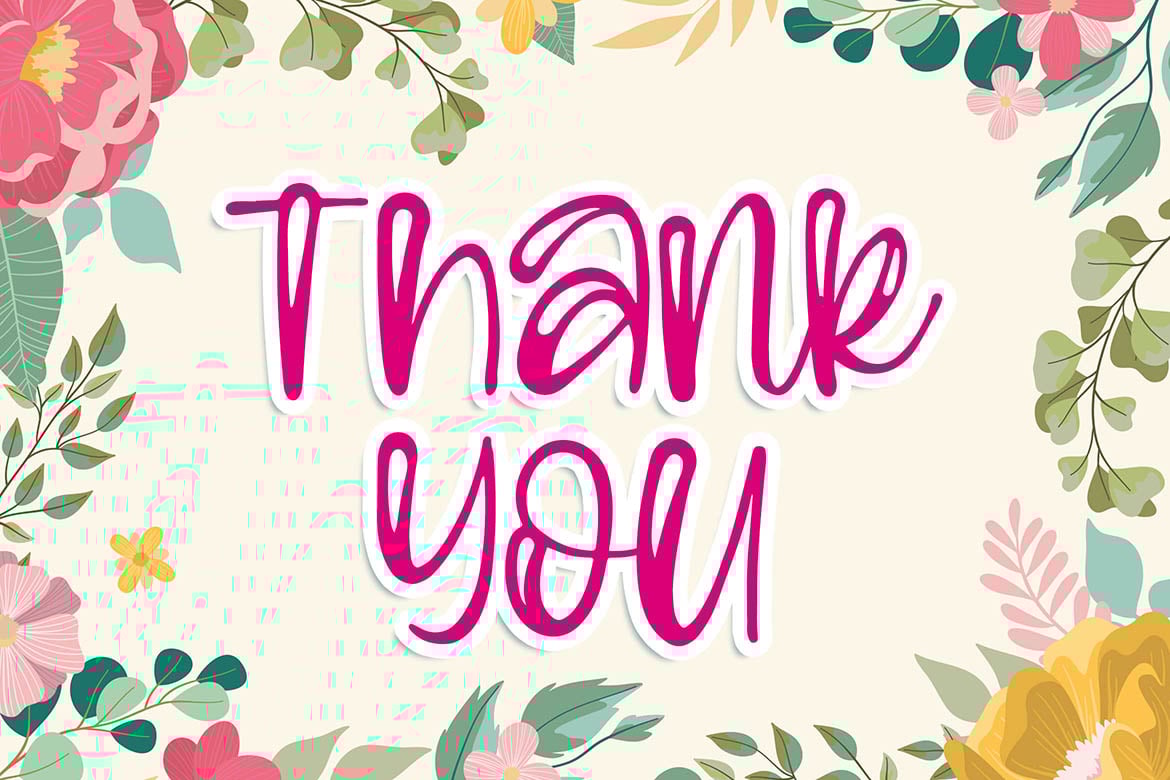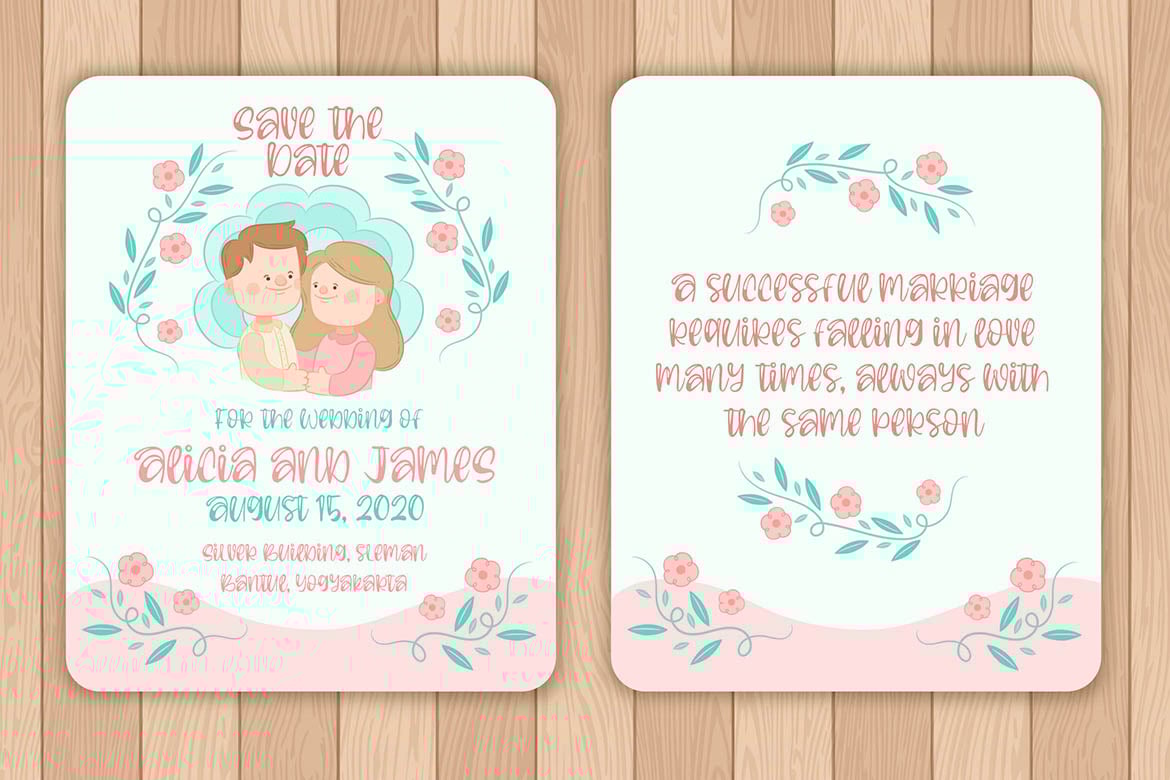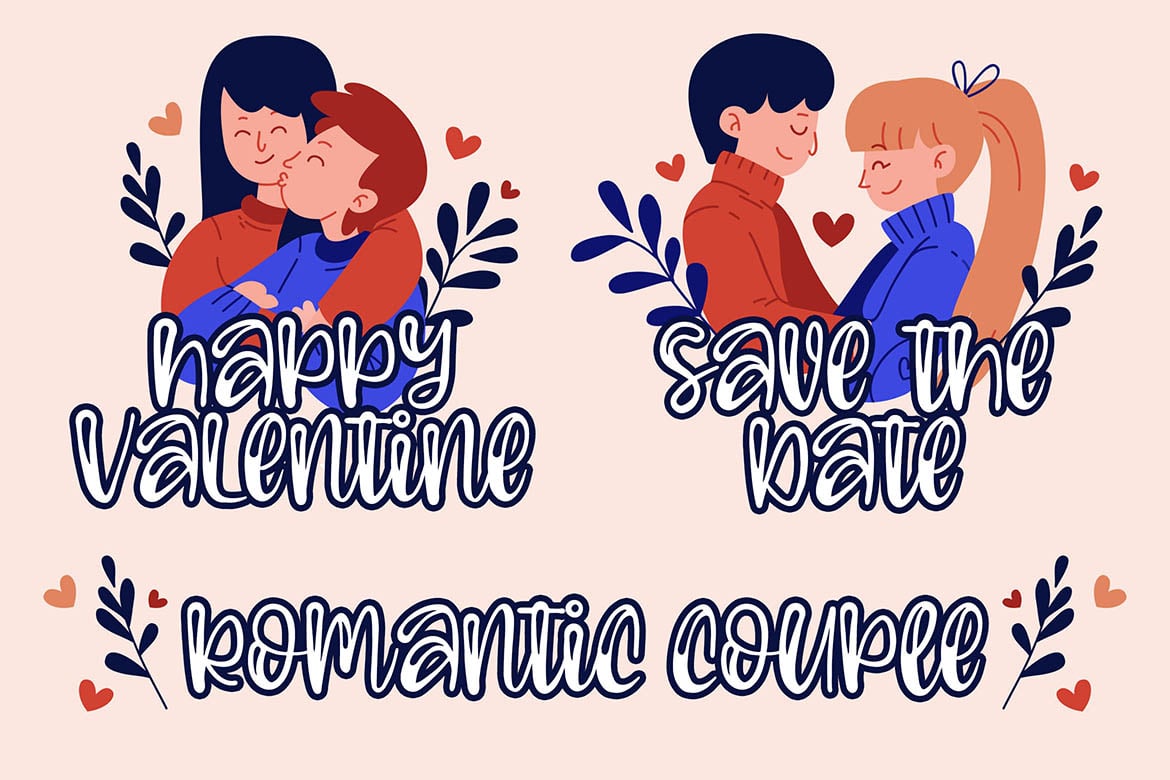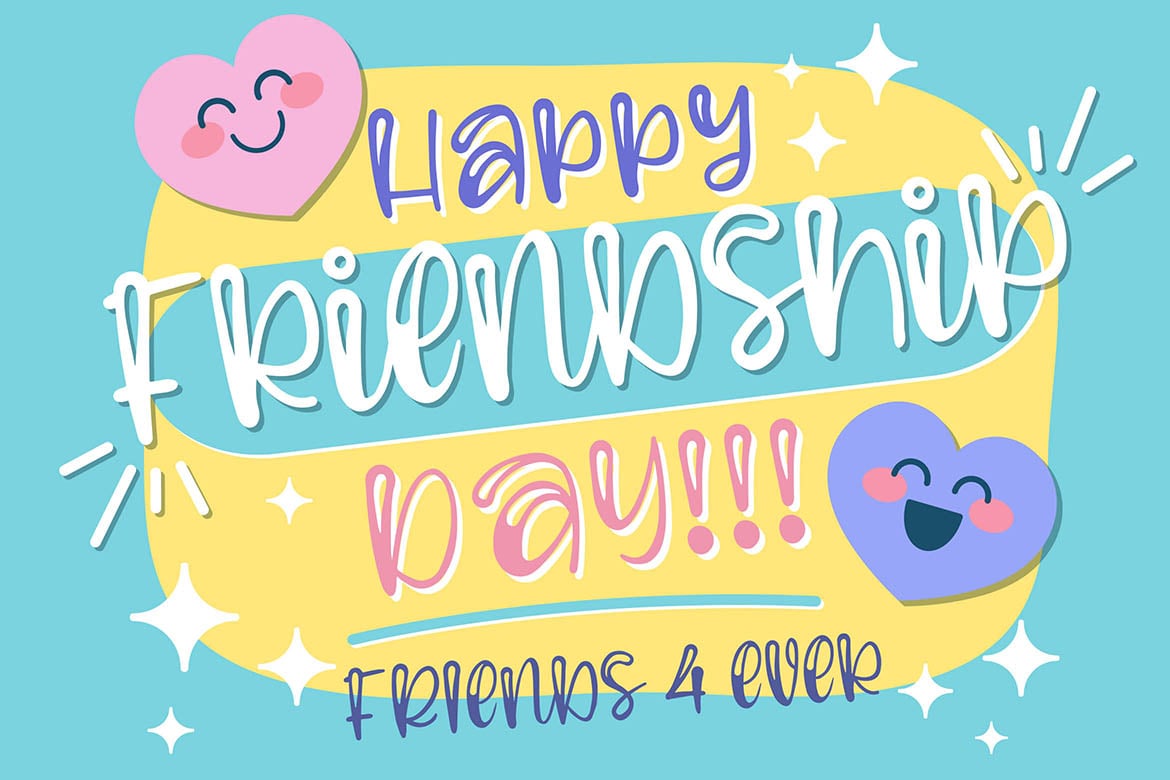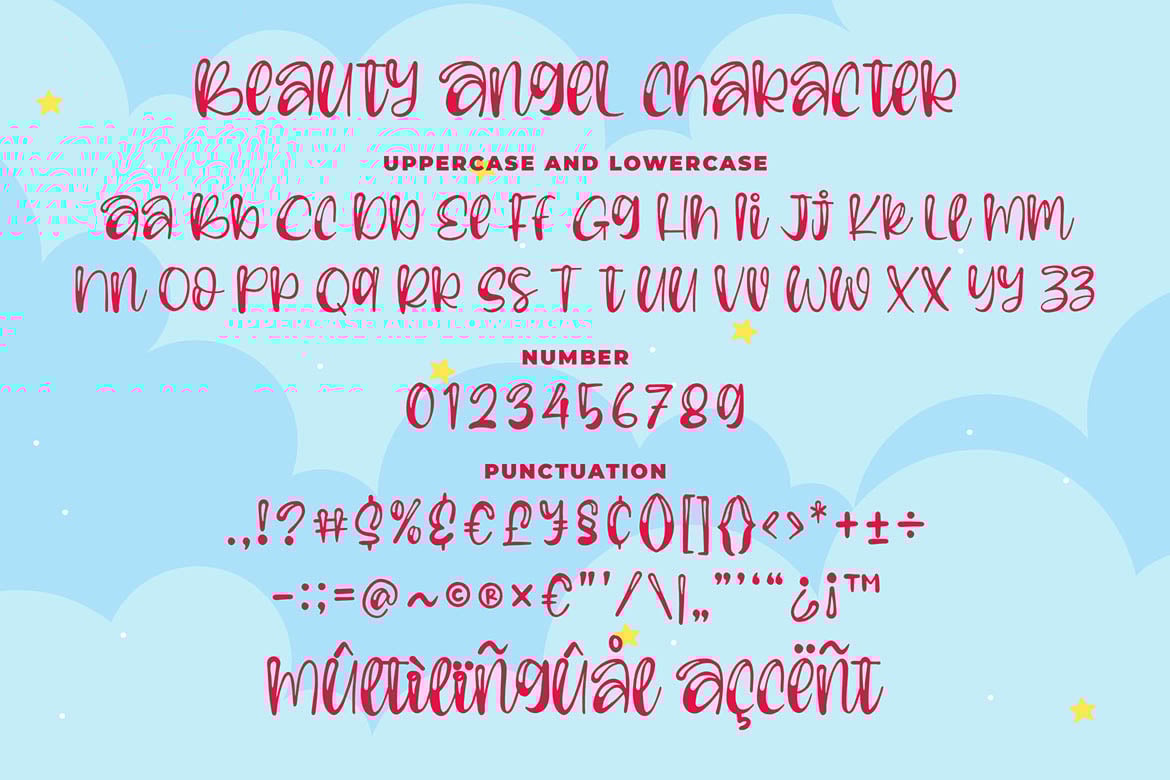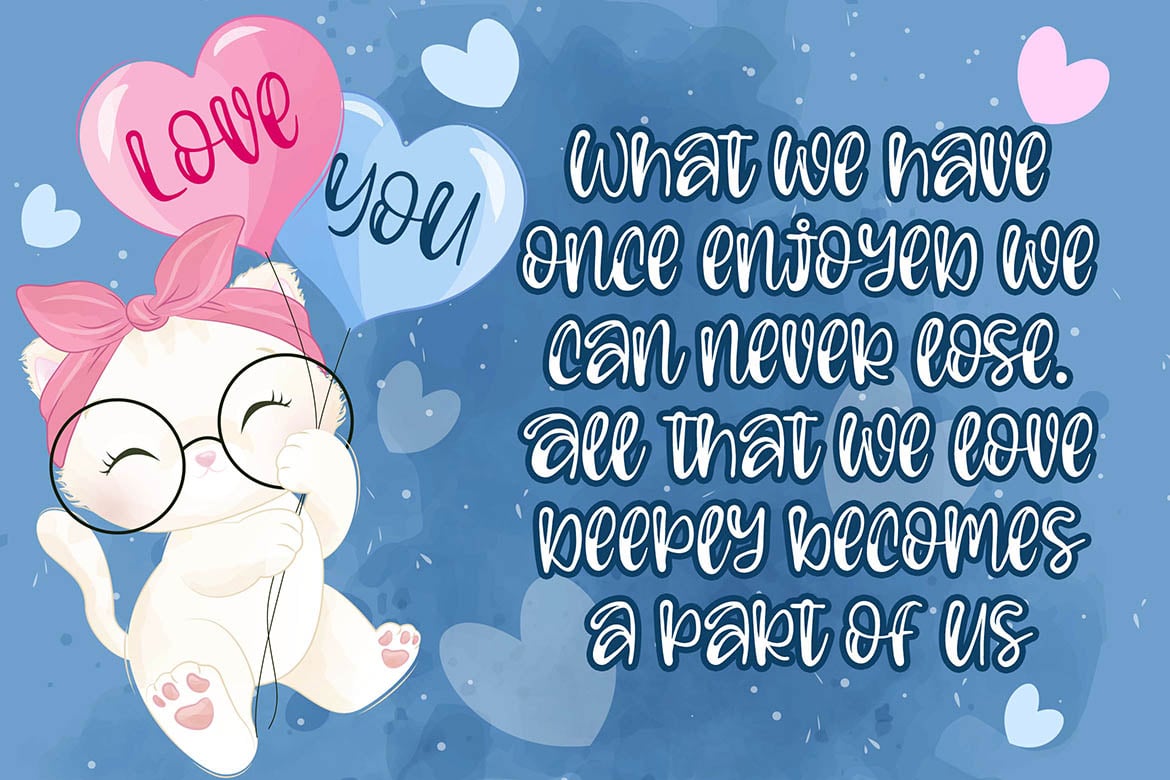
Beauty Angel – Bouncy Handwritten Font
Introducing of our new product the name is Beauty Angel Bouncy Handwritten Font. Beauty Angel inspired by modern calligraphy this font is a fun theme very good poster, craft, food menu, wedding invitation, logotype and etc
MULTILINGUAL ACCENT :
ØÆøæ¢ÐŒœÁĂÂÀÄĄÅÃǼĆČÇĈĊĎÉĔĚÊËĖÈĘĞĜĢĠĤÍĬÎÏİÌĮĨĴĶĹĽĻĿŃŇŅÑÓŎÔÖÒŐǾÕŔŘŖŚŠŞŜȘŤŢÚŬÛÜÙŰŲŮŨẂŴẄẀÝŶŸỲŹŽŻáăâäàąåãǽćčçĉċďéĕěêëėèęğĝģġĥíîïìįĩĵķĺľļŀńʼnňņñóŏôöòőǿõŕřŗśšşŝșťţŭûüűùųůũẃŵẅẁýŷÿỳźžż